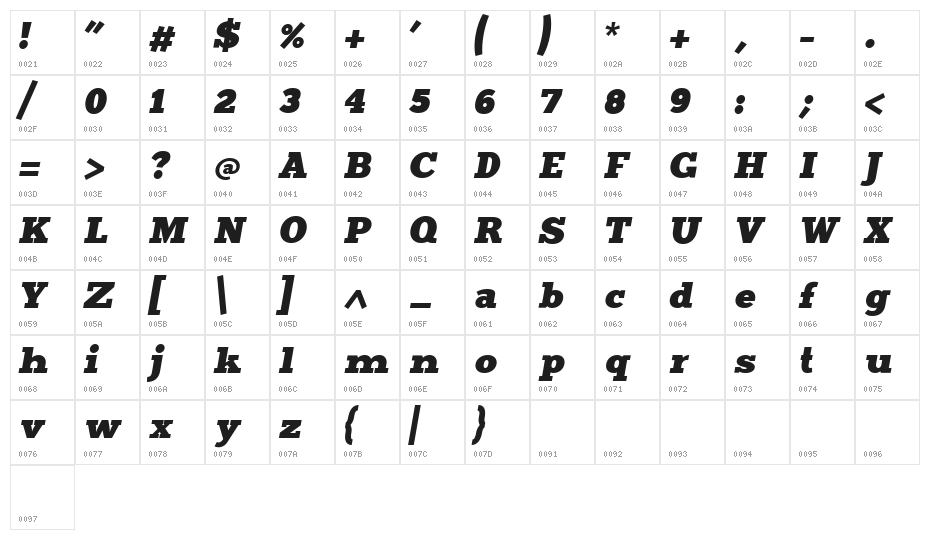
Merit Italic Font
Merit Italic Description
This font exhibits a bold and dynamic presence with its italicized style, offering a sense of movement and emphasis. The characters are robust and well-defined, with a strong contrast between thick and thin strokes, enhancing readability and visual impact. The uppercase letters are commanding, while the lowercase letters maintain a consistent flow, making it versatile for various design needs. The numerals are clear and distinct, ensuring legibility in numerical data presentation. Special characters are included, providing comprehensive usage across different contexts.
| Proposed Projects | Ideal for branding, advertising, headlines, and editorial design where emphasis and impact are desired. |